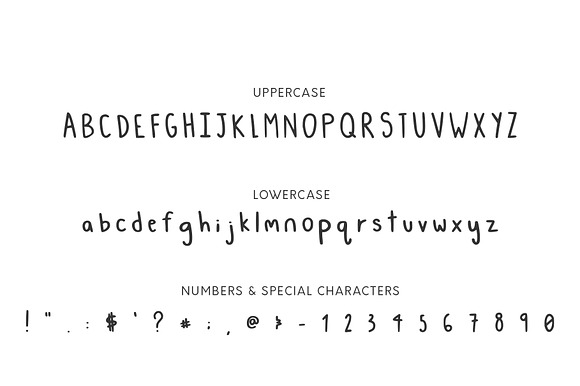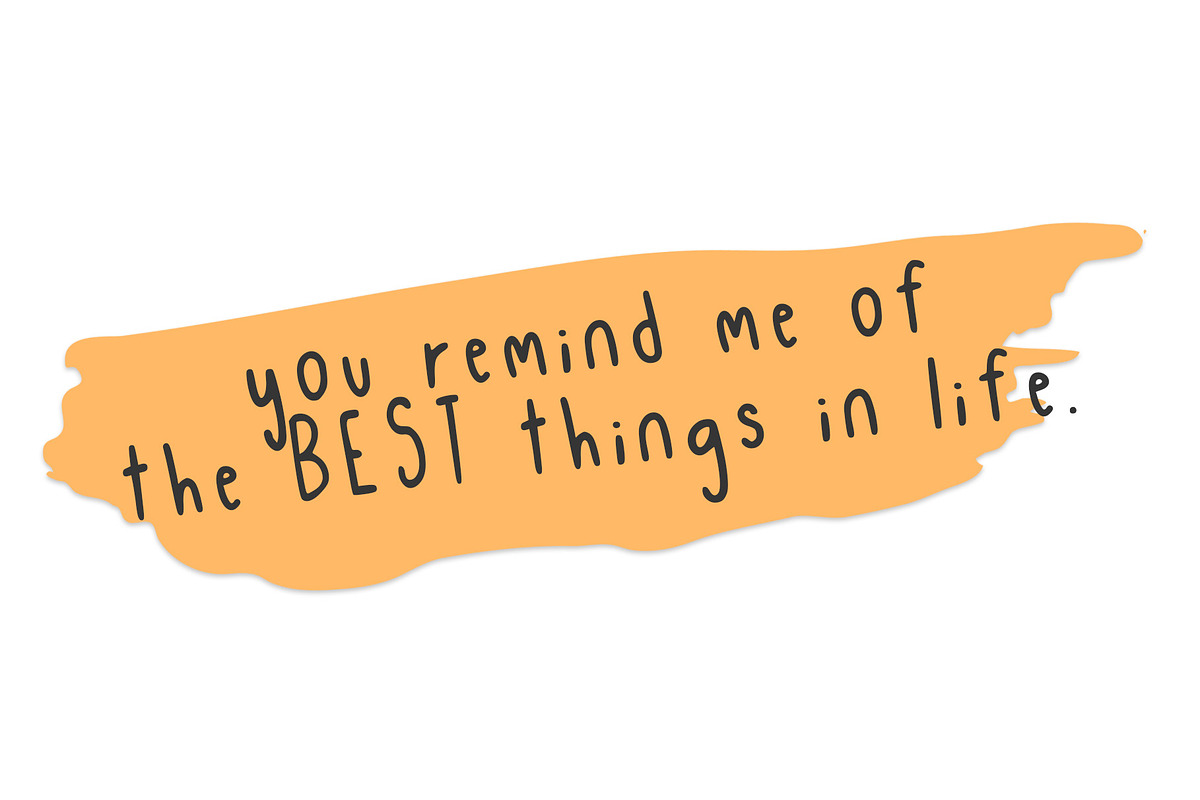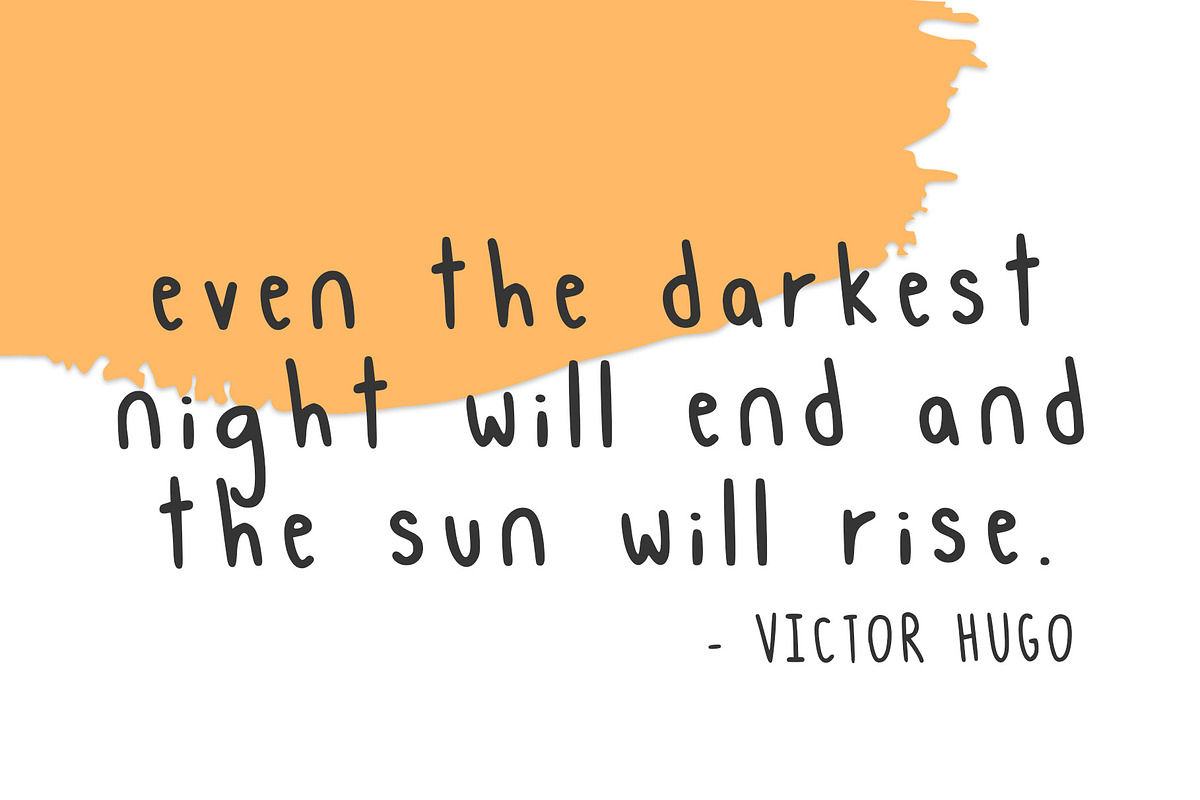
Peanut Brittle, A Hand-Lettered Font
Introducing Peanut Brittle! A sans serif typeface with clean lines and a doodle-like feel. Perfect for all sorts of graphic design projects. Including web design, branding, stationery design, logos, banners and more!
-Uppercase alphabet -Lowercase alphabet -Numerals: 0-9 -Speciality characters: ! : $ - " # ; @ . ? & ; '